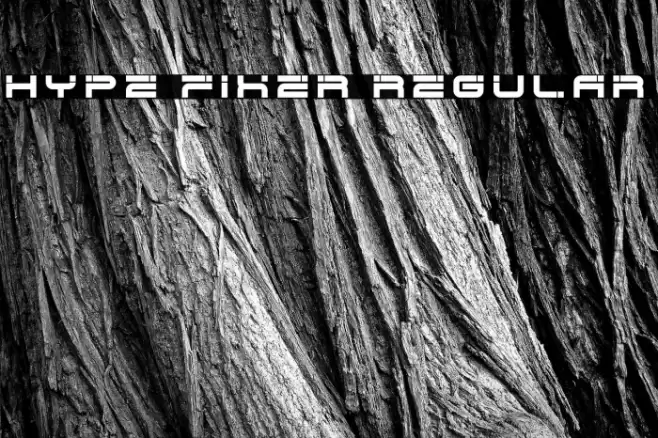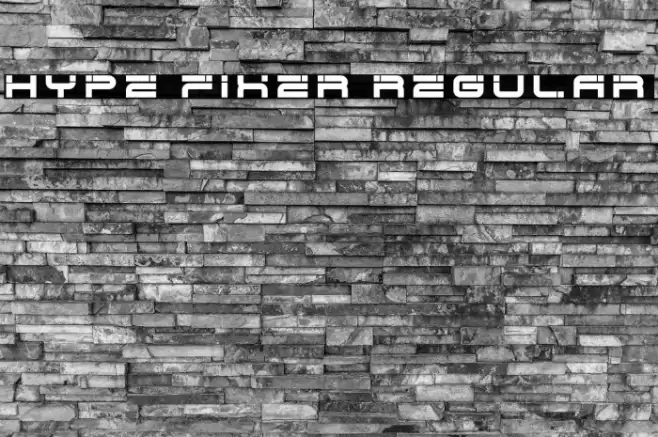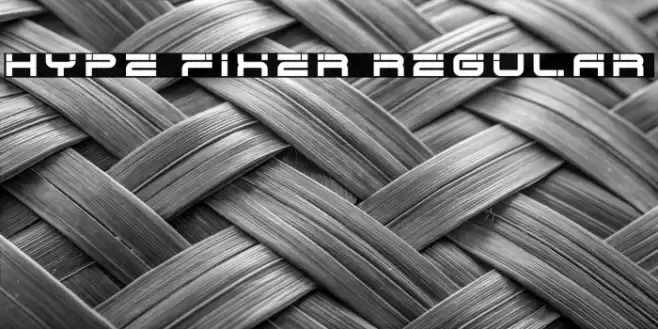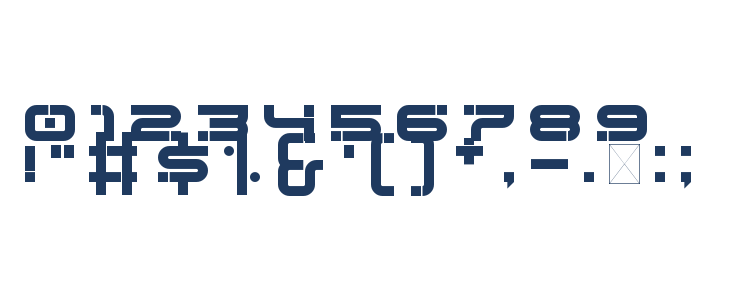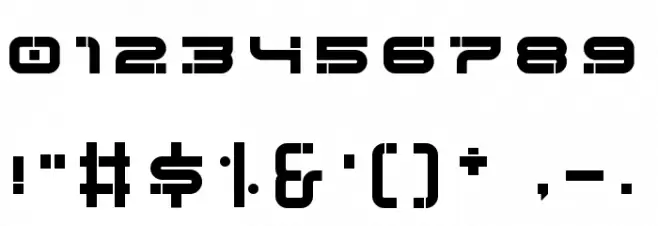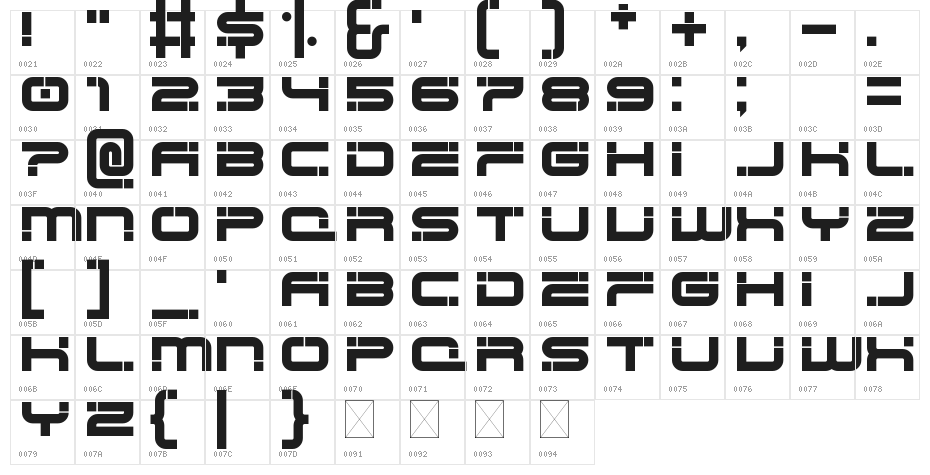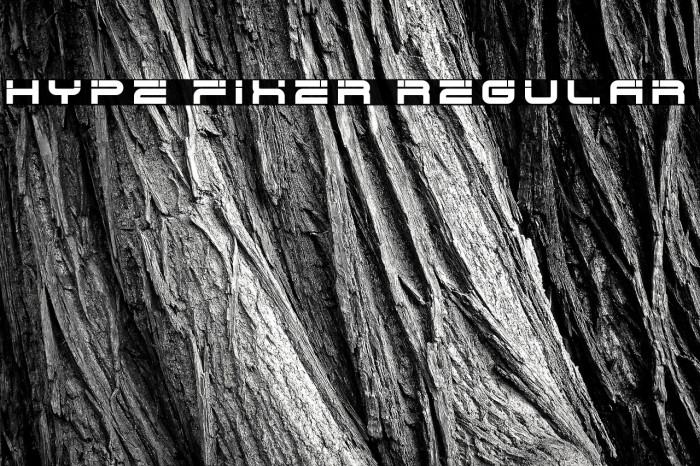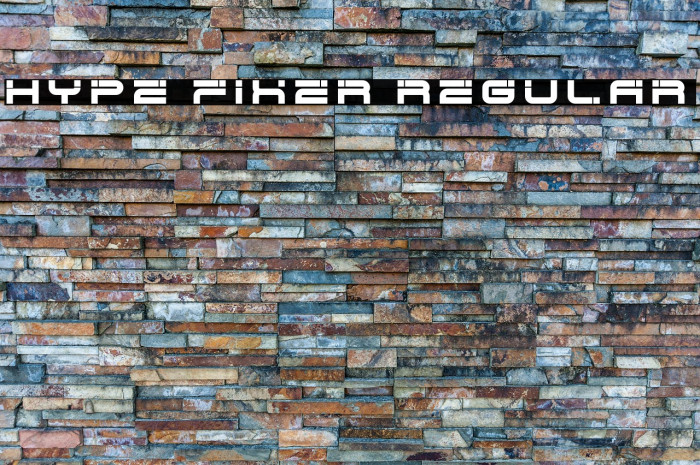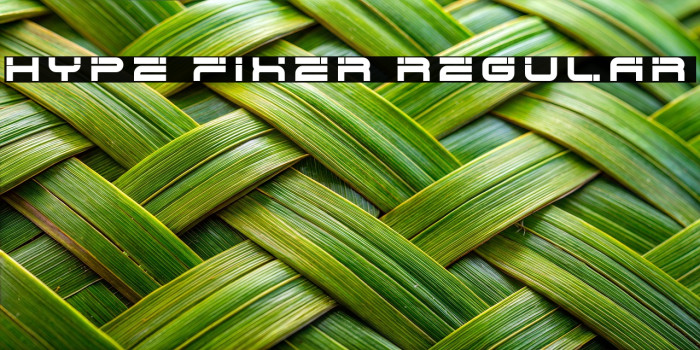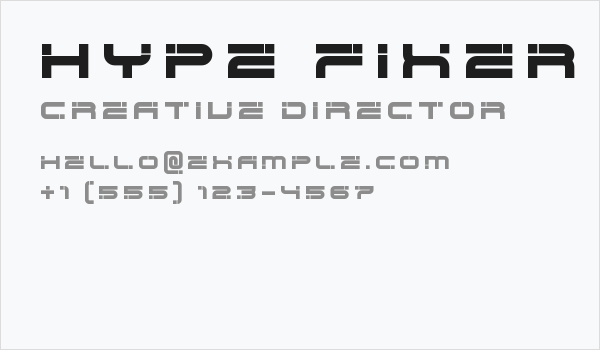
Hype Fixer Regular Font
Hype Fixer Regular Description
This font features a modern, geometric design with a futuristic aesthetic. Each character is constructed with a combination of solid and segmented lines, creating a digital or tech-inspired look. The uppercase and lowercase letters maintain a consistent style, with rounded edges and uniform thickness, giving the font a cohesive appearance. The numerals and special characters follow the same design principles, ensuring a seamless integration across different text elements. The overall style is bold and eye-catching, making it suitable for projects that require a contemporary and innovative feel.
A modern, geometric font with a futuristic, tech-inspired design from Regular fonts.